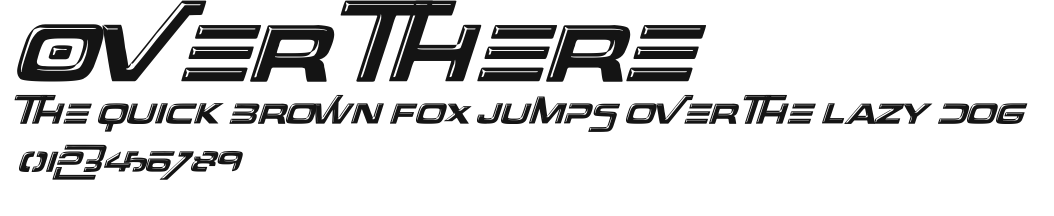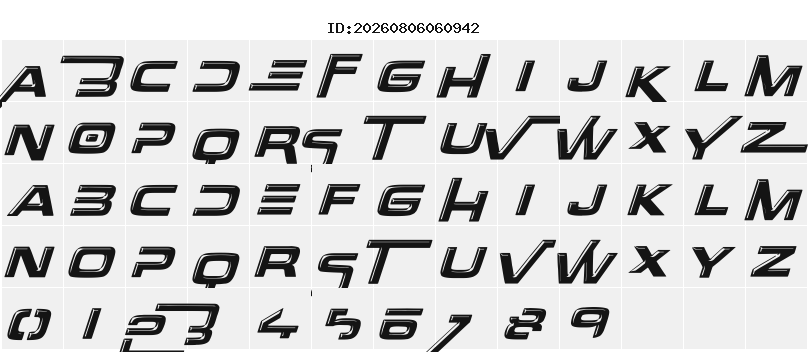
Over There Preview
• Font Name: Over There
• Full Font Name: Over There
• Designer: Imagex
About Over There.ttf
Over There.ttf is a modern, elegant sans-serif font designed for ultimate readability and visual harmony. Perfect for branding, headlines, web design, and print materials.